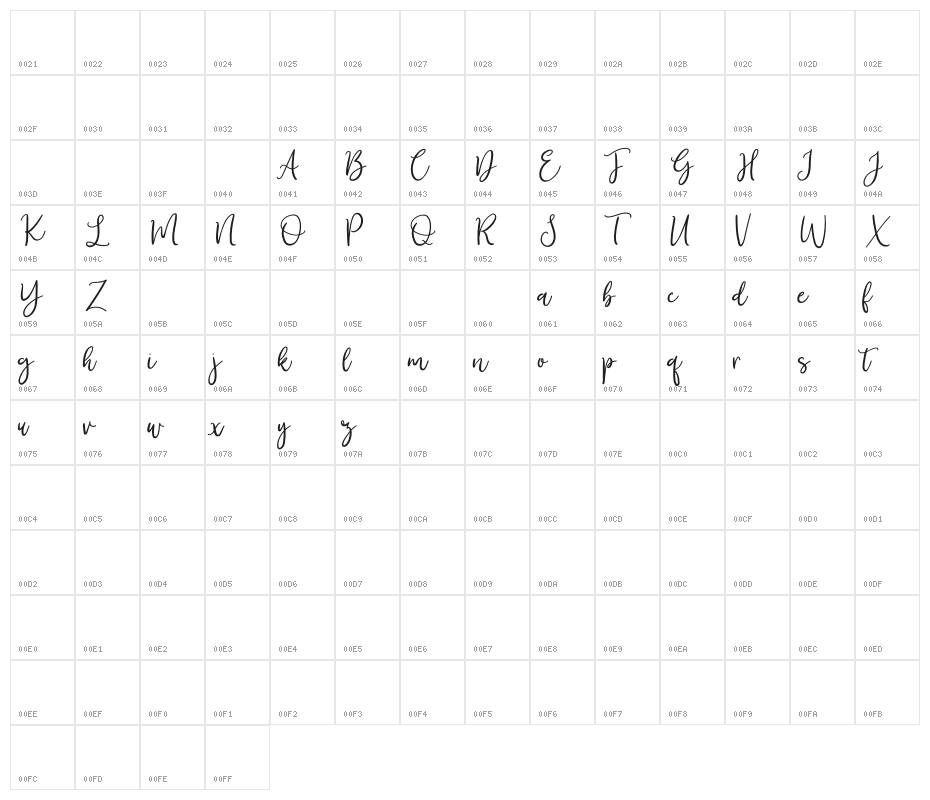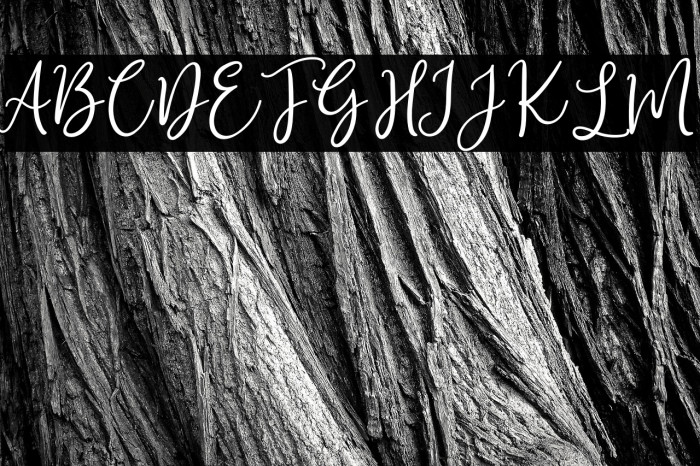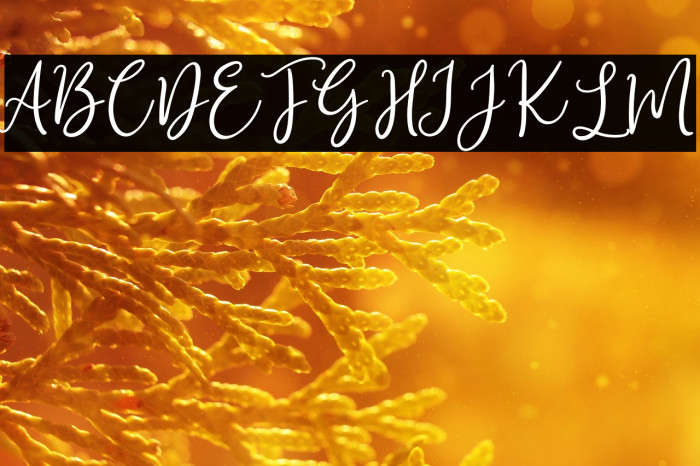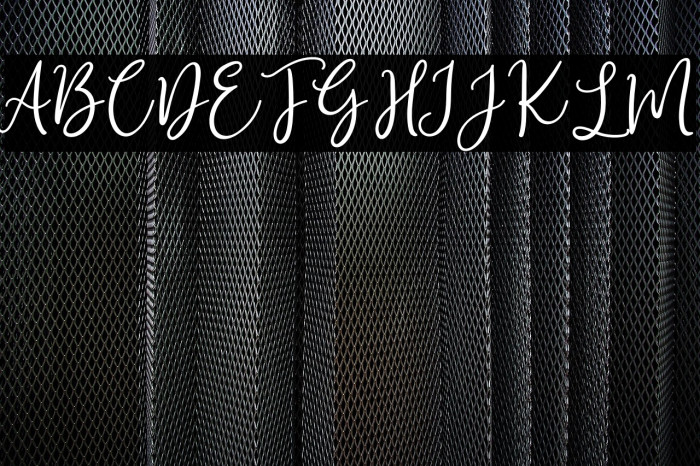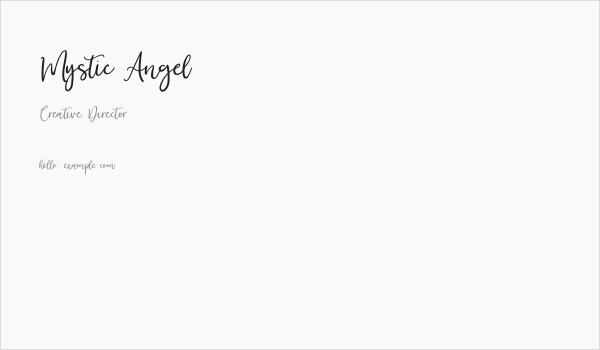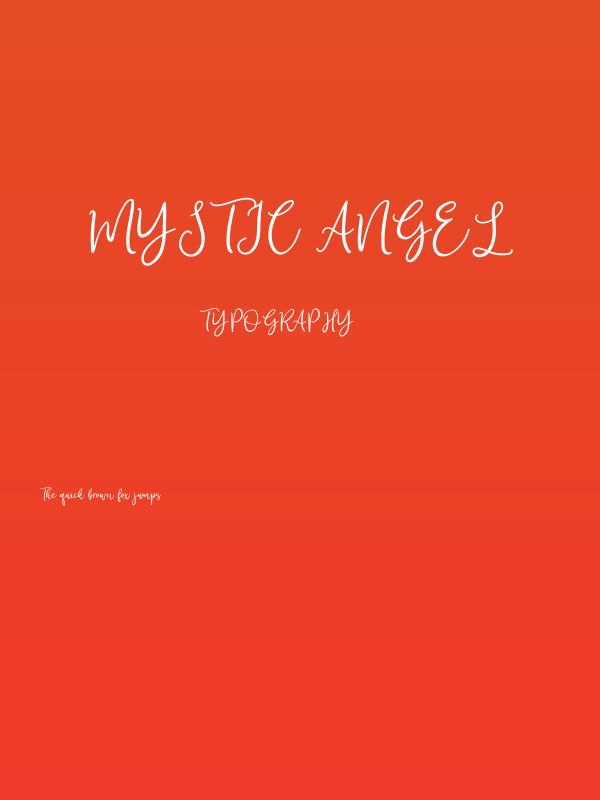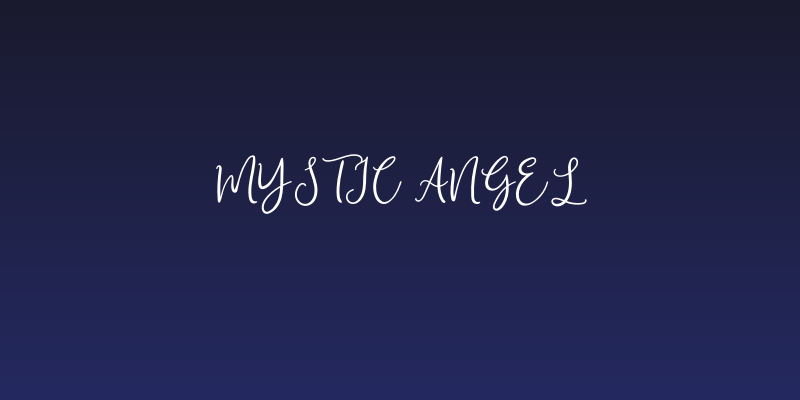
Mystic Angel Font
Mystic Angel Description
This font exudes a whimsical and elegant charm, characterized by its flowing, cursive script style. The uppercase letters are tall and slender, with graceful loops and swirls that add a touch of sophistication. The lowercase letters maintain a consistent flow, with some characters featuring unique flourishes that enhance their visual appeal. The overall design is smooth and fluid, making it ideal for projects that require a personal and artistic touch. The font's playful yet refined nature makes it suitable for a variety of creative applications.
| Proposed Projects | Ideal for wedding invitations, greeting cards, branding, and artistic projects that require a personal touch. |